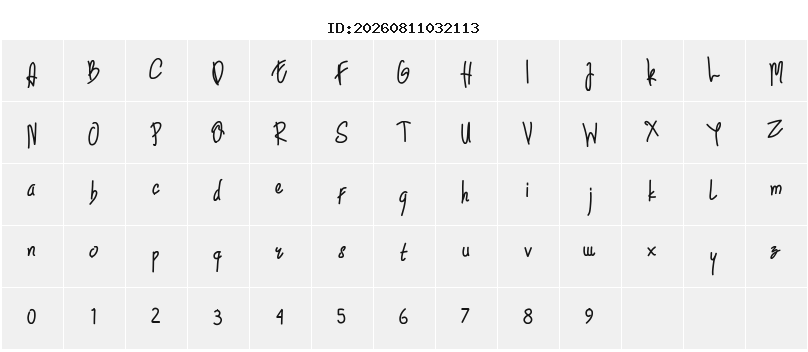
• Font Name: Rowdy Sans
• Manufacturer: madeDeduk
About Rowdy Sans.ttf
Rowdy Sans.ttf is a modern, elegant sans-serif font designed for ultimate readability and visual harmony. Perfect for branding, headlines, web design, and print materials.